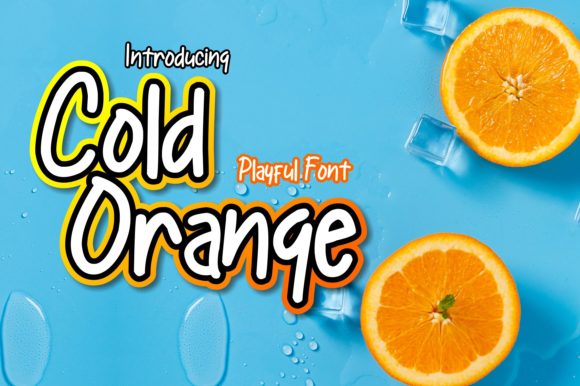
Cold Orange: A Playful Font for Creative Projects
There I was, staring at a blank brand board, trying to figure out how to make the logo feel just right. The client wanted something that felt warm and approachable, but still had a bit of personality. That’s when I reached for Cold Orange, a sweet and incredibly cute display font from the Script Amp collection. It didn’t take long to realize this font could be the perfect match for the project.
From the first look, Cold Orange has a soft, rounded style that feels both friendly and whimsical. The curves are gentle, the strokes are consistent, and there’s a subtle playfulness in every letter. It doesn’t scream “childish,” but it definitely carries that light, joyful energy that can elevate a design without overwhelming it. For a small café or a boutique, this font could add just the right touch of charm.
Testing Cold Orange in Real Design Work
I started by placing it on a simple logo draft. The font worked well as a headline, giving the brand a sense of warmth and creativity. I experimented with different sizes and spacing, making sure it didn’t become too cramped or too loose. One thing I noticed is that Cold Orange really shines when used in short-form text—like a tagline or a product name. It’s not the best choice for long paragraphs, but as a display font, it’s hard to beat.
Next, I tried it on a packaging mockup. The font looked great on a label sticker, adding a playful edge to the design. It paired nicely with a clean sans serif for the product description, creating a nice balance between the two. I also tested it on a shop sign, where its rounded shapes made it more readable from a distance. The font didn’t feel too flashy, which was a relief—it maintained a level of professionalism while still being fun.
How Cold Orange Fits into Brand Identity
When working on a brand identity, consistency is key. Cold Orange can be a strong asset in this area, especially when used as a logo font or an accent. It works well alongside other typefaces, like a classic serif or a modern sans serif, to create a layered and dynamic visual hierarchy. I found that pairing it with a slightly bolder weight helped it stand out without clashing.
Practical Tips for Using Cold Orange
If you’re thinking about using Cold Orange in your next project, here are a few things to keep in mind. First, test it in different contexts—on a business card, a website header, or a social media graphic. Each medium will highlight different aspects of the font. Second, don’t overuse it. Since it’s a display font, it’s best to use it sparingly to maintain clarity and impact.
Another tip is to check out the included styles and alternates. Some fonts come with multiple versions of the same character, which can be useful for customizing the look. Cold Orange offers a few variations that add subtle uniqueness to the design without being distracting.
Where Cold Orange Shines
Cold Orange is ideal for projects that want to convey a sense of warmth, playfulness, or nostalgia. It works well in editorial design, such as a magazine spread or a blog post title. It also adds a nice touch to web design, especially in hero sections or call-to-action buttons. For print materials like flyers or posters, the font can help draw attention without being too loud.
When it comes to social media graphics, Cold Orange can make a post stand out. Whether it’s an Instagram caption or a Facebook banner, the font adds a personal and creative flair. It’s also great for merchandise, like T-shirts or mugs, where a unique font can make a big difference.
Overall, Cold Orange is a versatile and charming font that brings a fresh perspective to any design. Its soft, playful style makes it perfect for brands that want to feel approachable and creative. Whether you're working on a café logo, a skincare label, or a digital campaign, this font can add that extra touch of personality that makes a design memorable.
As a designer, I’ve found that Cold Orange is one of those fonts that feels like it was made for storytelling. It’s not just about looking good—it’s about feeling right. And in the world of design, that’s what makes all the difference.